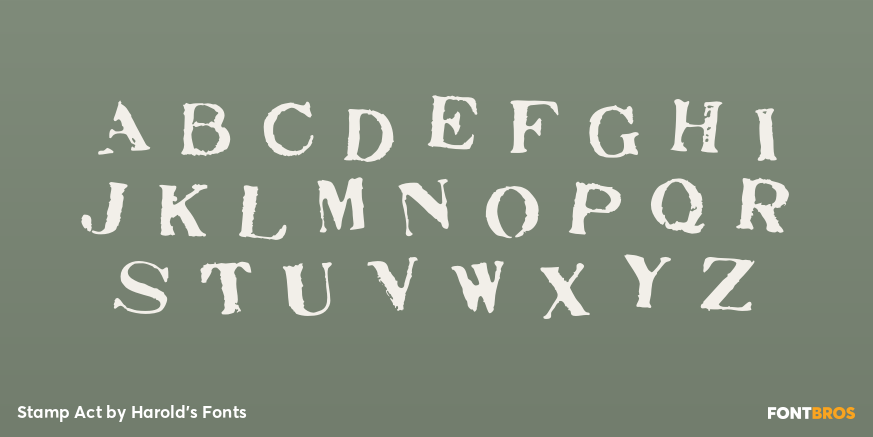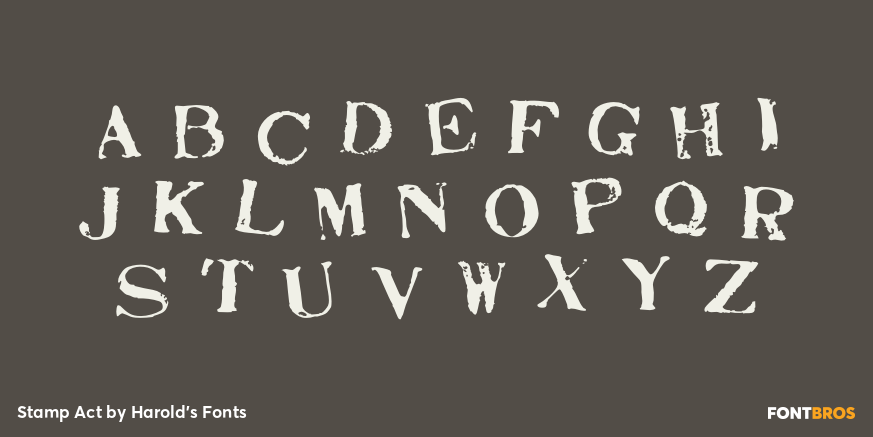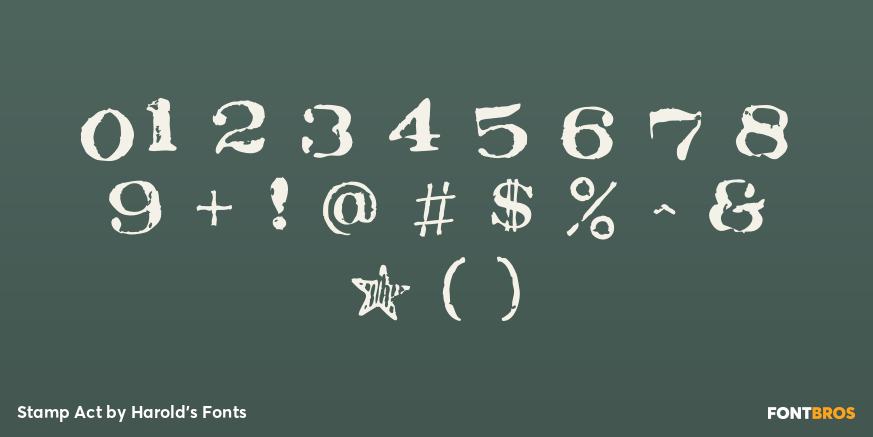
Stamp Act
Font Family by Harold's Fonts
The Regular and Jumbled versions of STAMP ACT were made from scans of cheap commercial rubber stamps from the 1970s. The awkward design of the letters suggests a vintage packing crate. A big font company sells something called Rubber Stamp but this, and my other rubber stamp fonts which can be found on this site, are more like real stamping. The jumbled version has randomized placement.